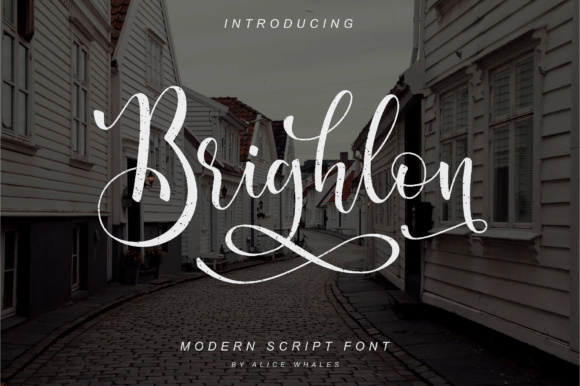
Welcome to the world of Brighlon Font, a captivating script font family born from the creative genius of NendesKombet. Brighlon is not just a font; it's an artistic dance of letters, a symphony of curves and loops that's destined to transform your designs into masterpieces.
Feel the energy burst from your screen as Brighlon's bouncy curves and playful loops bring life to your words. This font is an explosion of creativity, a vibrant celebration of self-expression that demands attention. Let your imagination run wild as you craft logos that dance off the page, quotes that leap into the heart, and invitations that whisper promises of extraordinary events.
With Brighlon, the possibilities are endless. Its versatility knows no bounds, adapting flawlessly to product packaging, headers, and any canvas your imagination paints. It's a font that breathes life into your creations, turning them into tangible expressions of your artistry.
Brighlon isn't just a font; it's an experience. It's a journey through a world where letters come alive, where words dance with grace, and where your designs take on a life of their own. Don't just use Brighlon; embrace it, let it ignite your creativity, and watch as your designs transform into works of art that captivate and inspire.